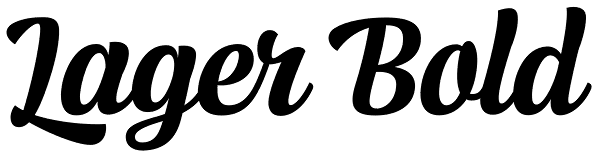
Lager
Lager is a plump, sympathetic and tasty script family inspired by good old American commercial lettering of mid-1900s – yet there’s more to it than meets the eye. Implemented with an exceptional feature called Intelligent Swash Lager delivers...